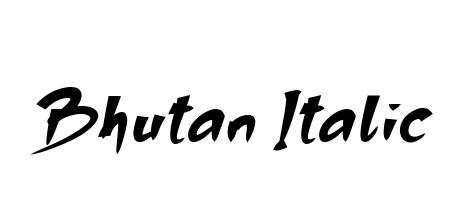
Bhutan Italic
By Aldedesign 2019 (Alde Saputro)
Bhutan Italic: A spirited script, echoing the rugged beauty of the Himalayas. Its bold, stylized strokes dance across the page with a playful energy, yet maintain a sophisticated elegance. Perfect for titles demanding attention, or adding a touch of adventure to any design. A font that whispers tales of faraway lands.